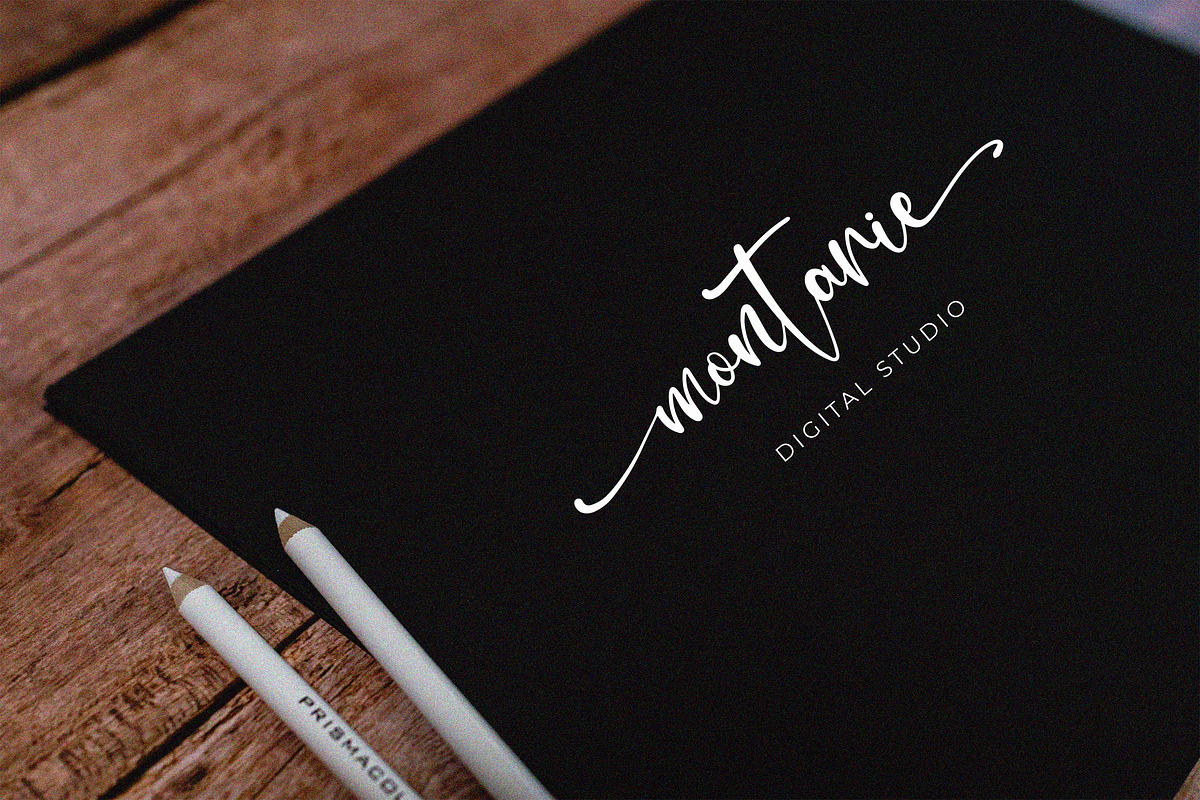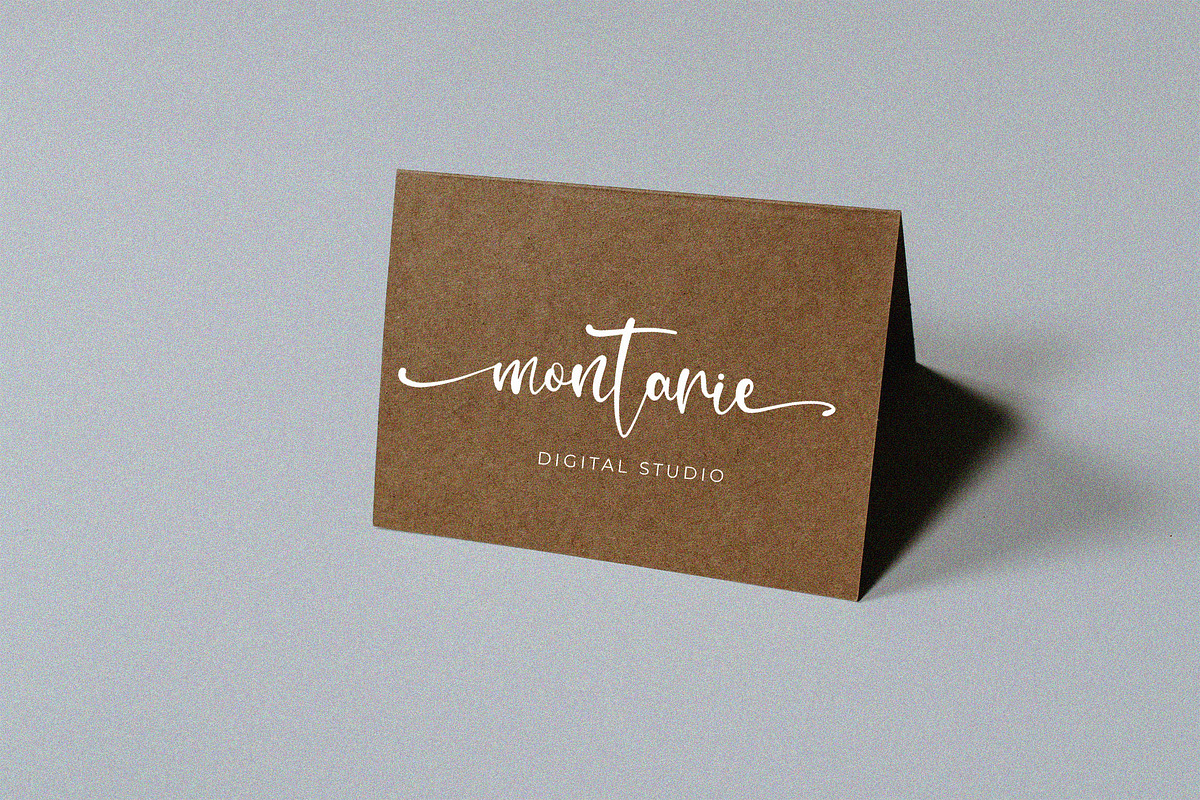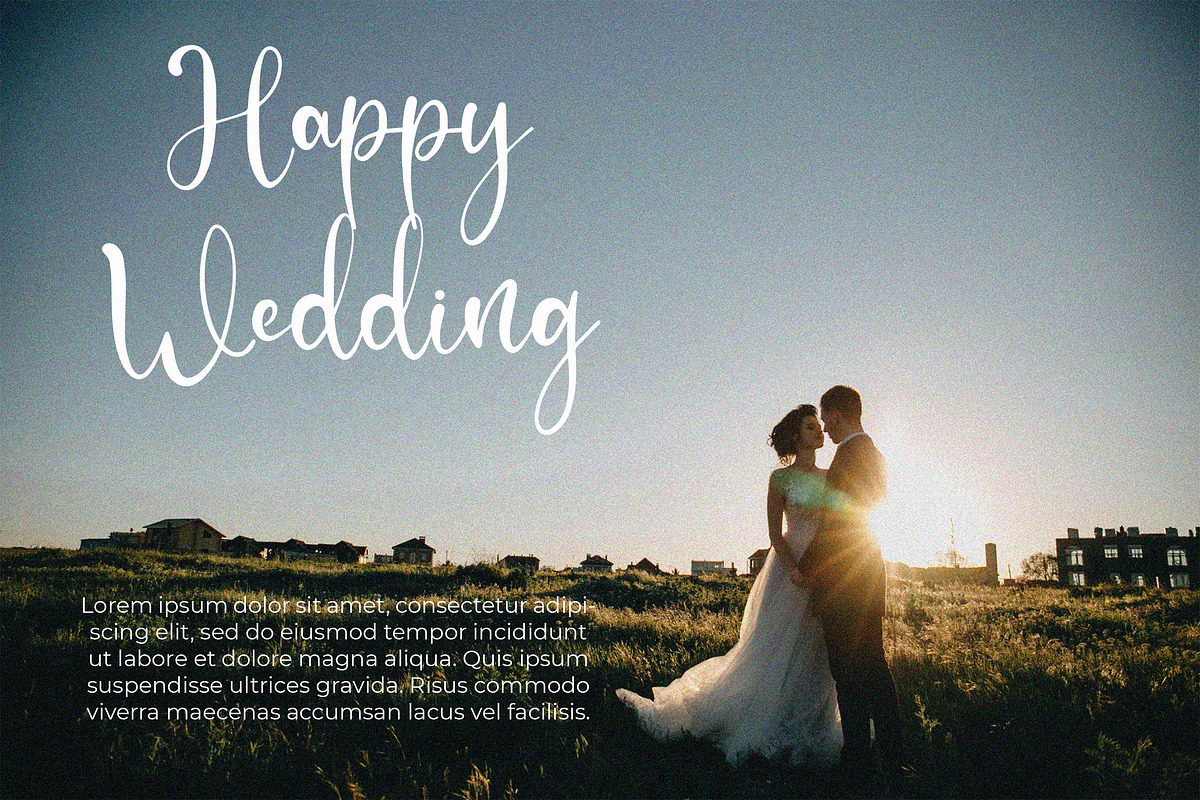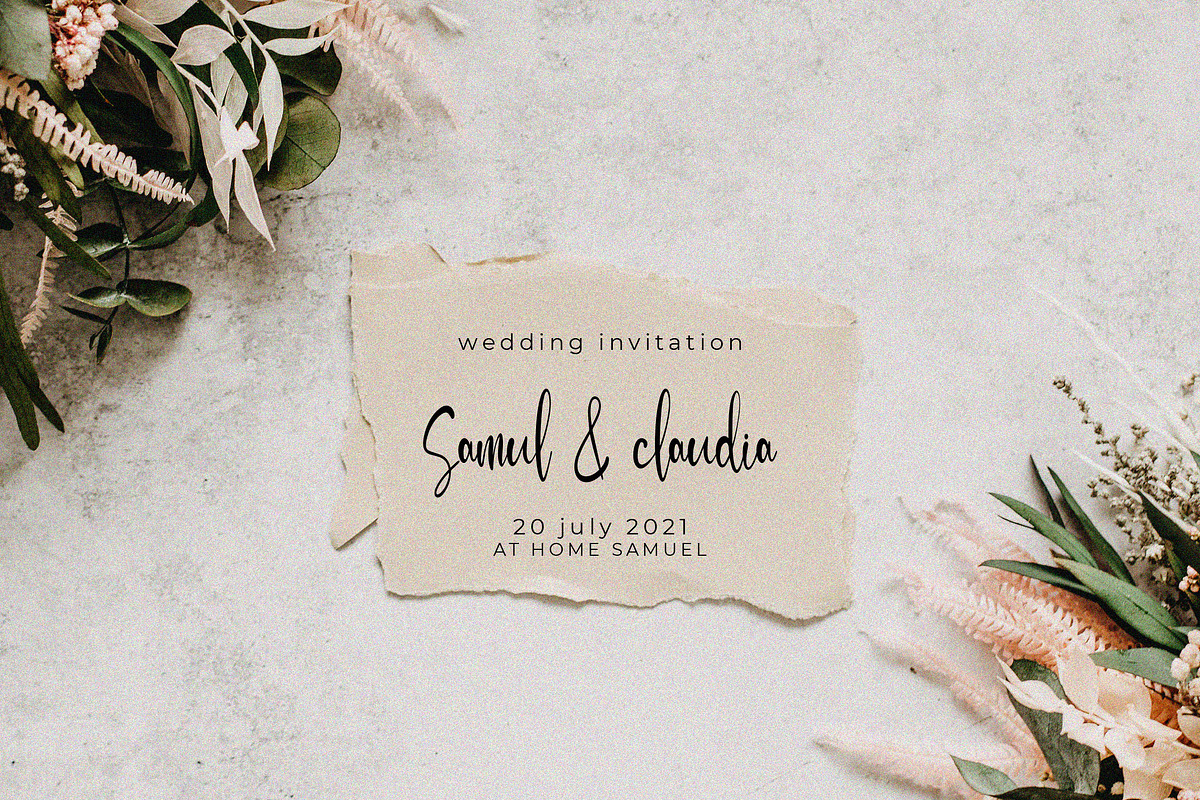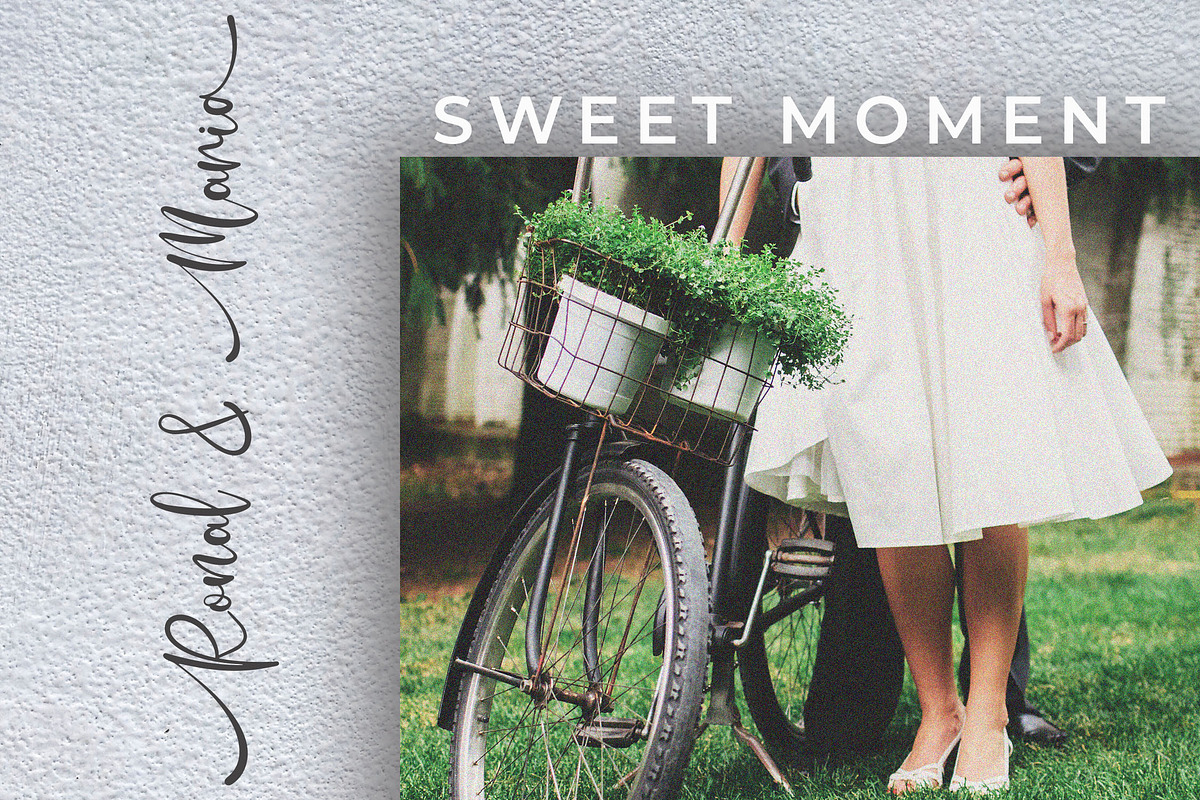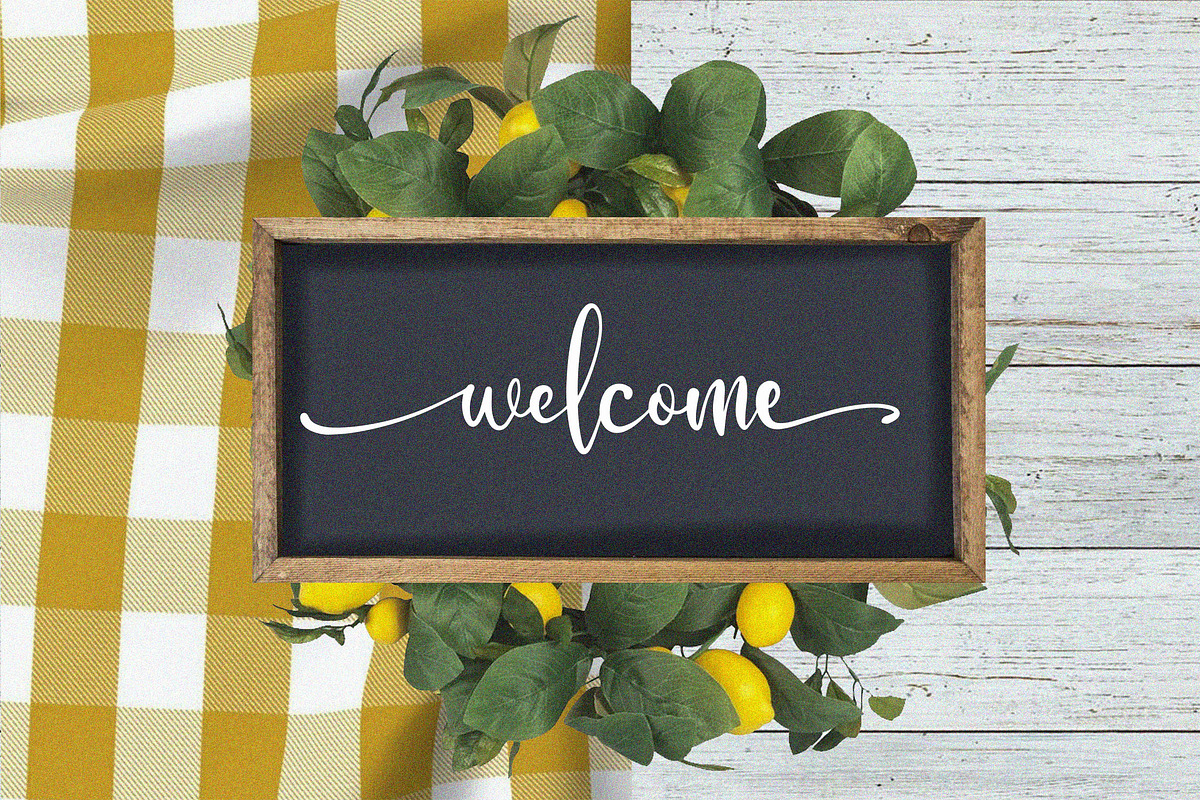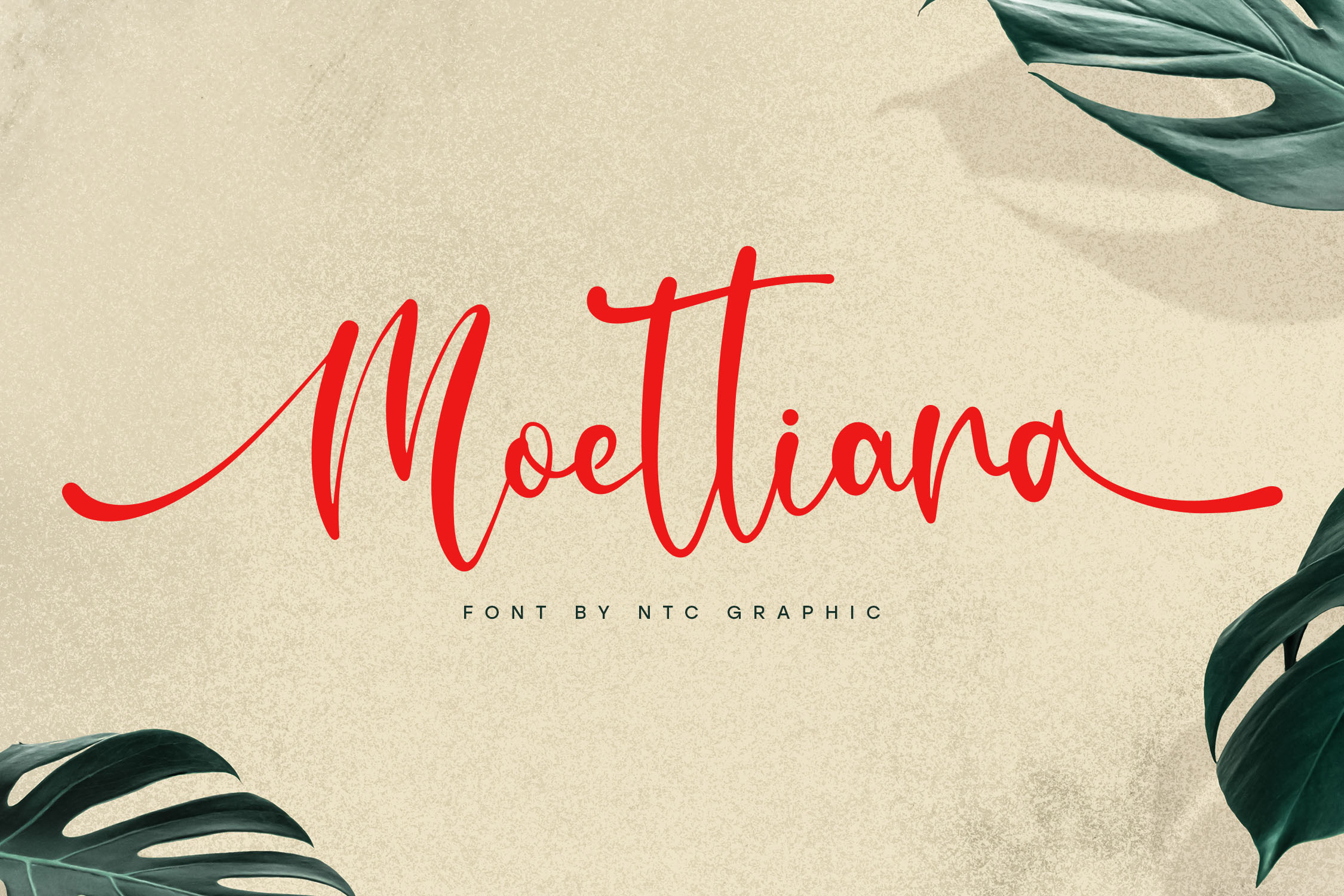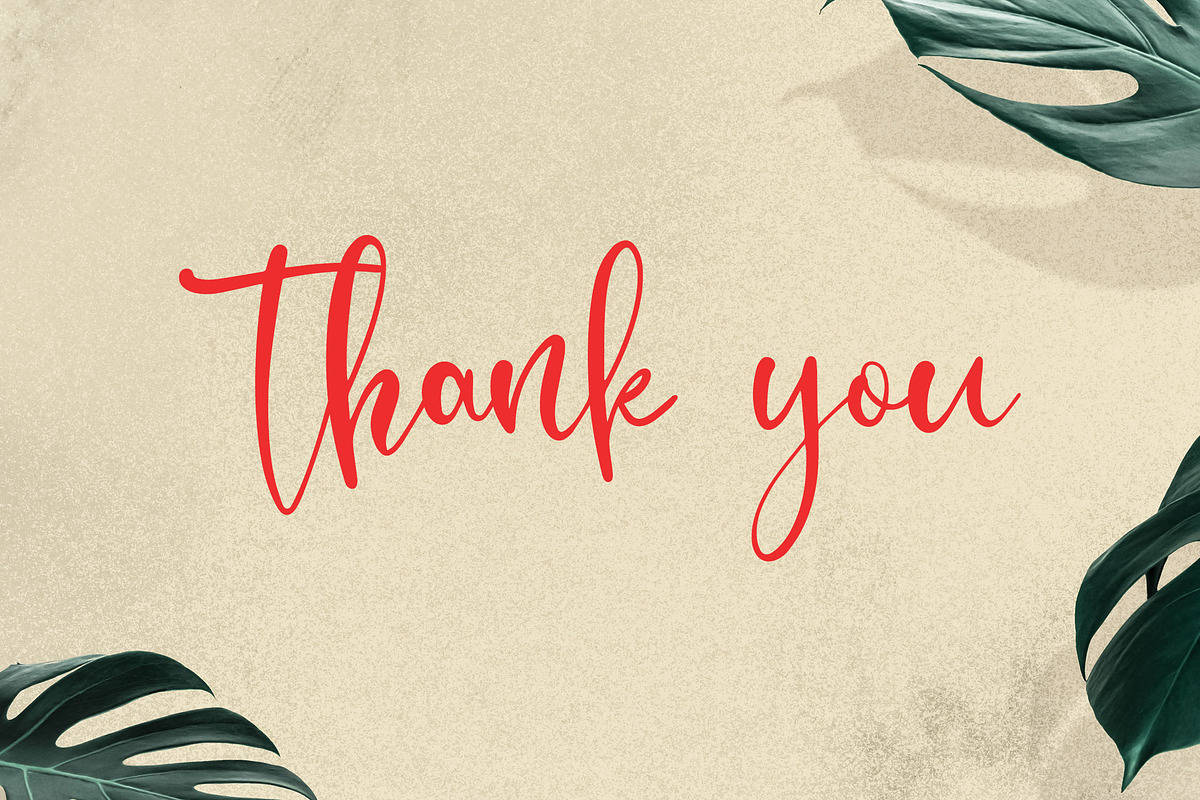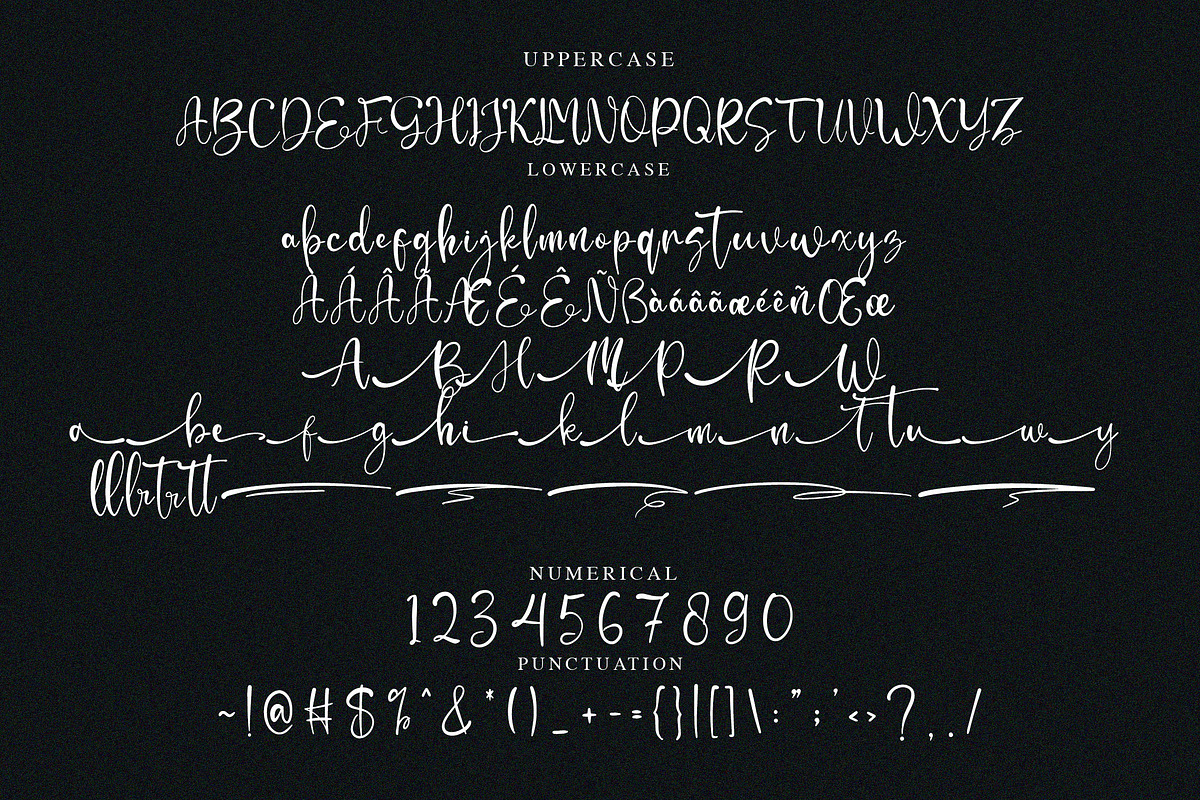
Moettiara Calligraphy Script Font
Moettiara is a calligraphy script font with minimalist style. Is a font style that is made with unique shapes font characters are really good. Can be applied to support the graphic appearance of the product to be more attractive.